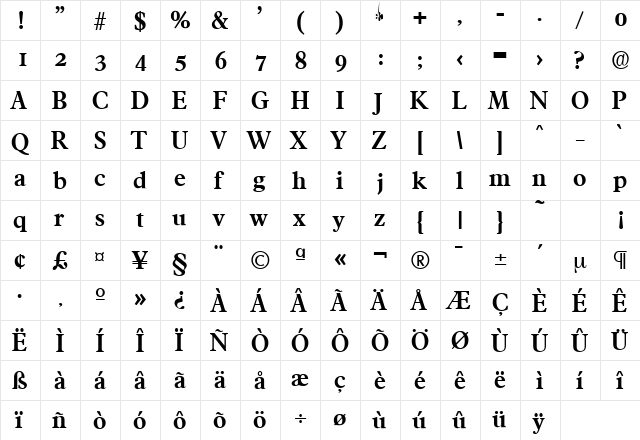
Francisco-Serial Bold
Design Context for Francisco-Serial Typeface
Francisco-Serial takes a measured approach to typography — its balanced proportions and neutral character make it a reliable workhorse for both digital and print work. Its bold stroke weight gives it real presence on the page.